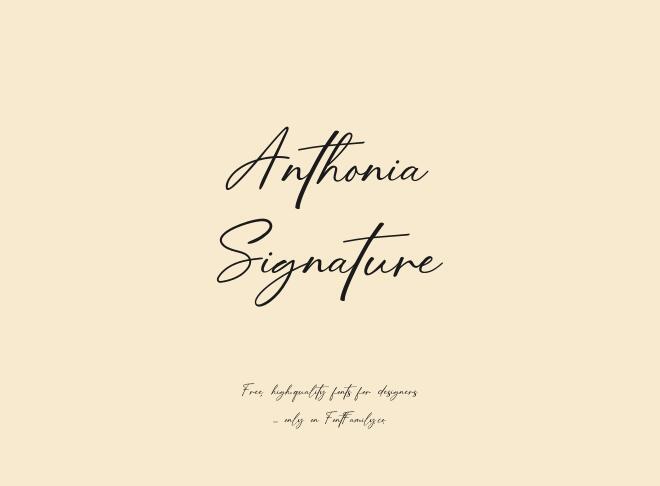
Anthonia Signature Font
Anthonia Signature Font is an elegant and sophisticated handwritten typeface from Creative Fabrica Fonts. It's a unique blend of classic and modern styles, perfect for adding a luxurious and stylish touch to your designs. Its smooth curves and natural flow give it a genuine, heartfelt feel, making it ideal for wedding invitations, branding, social media posts, and more. Compared to other fonts, Anthonia stands out with its signature style and personal touch. Its versatility makes it a great choice for a wide range of design projects. Whether you are designing a logo or creating an invitation, Anthonia Signature Font adds an authentic, personalized touch that is sure to impress. Download it today and bring your designs to life with this stunning font.